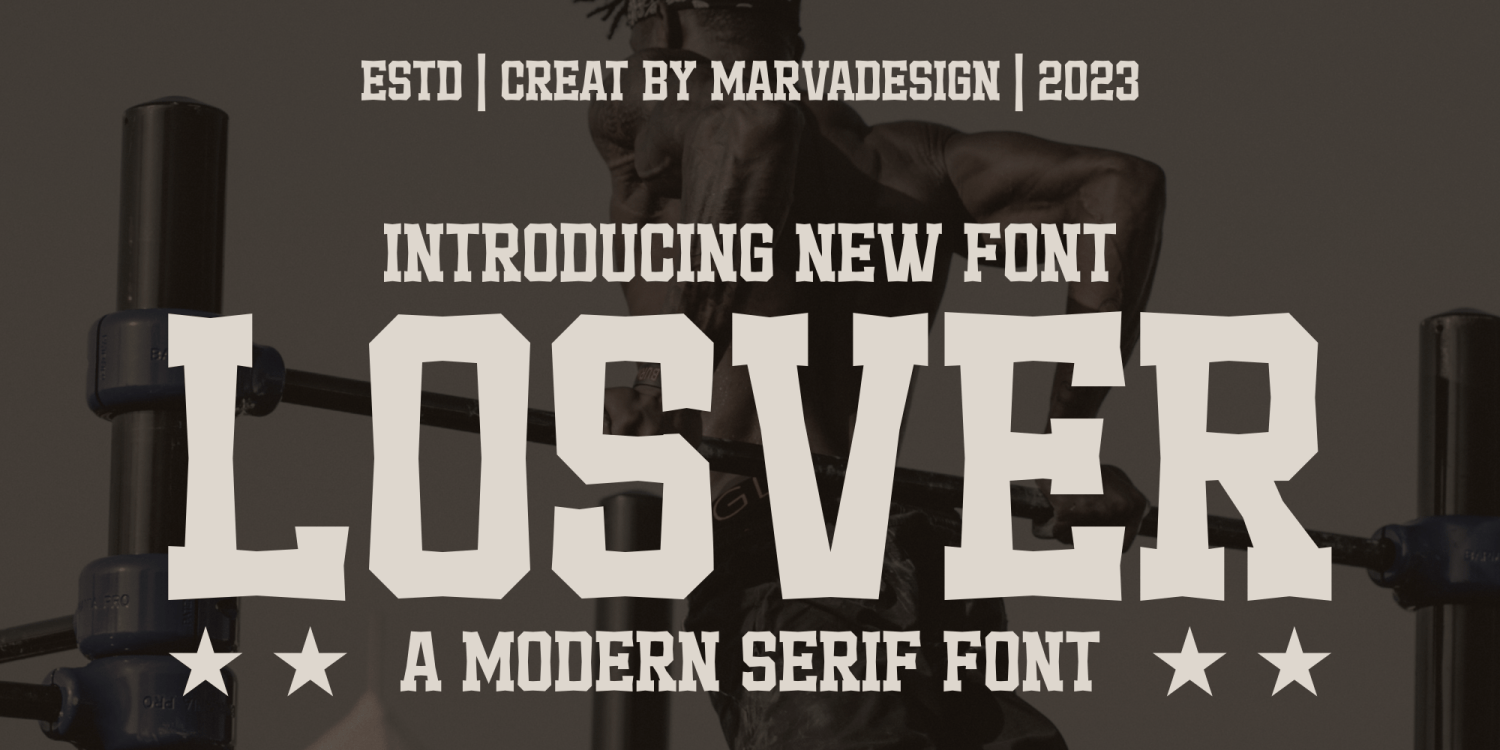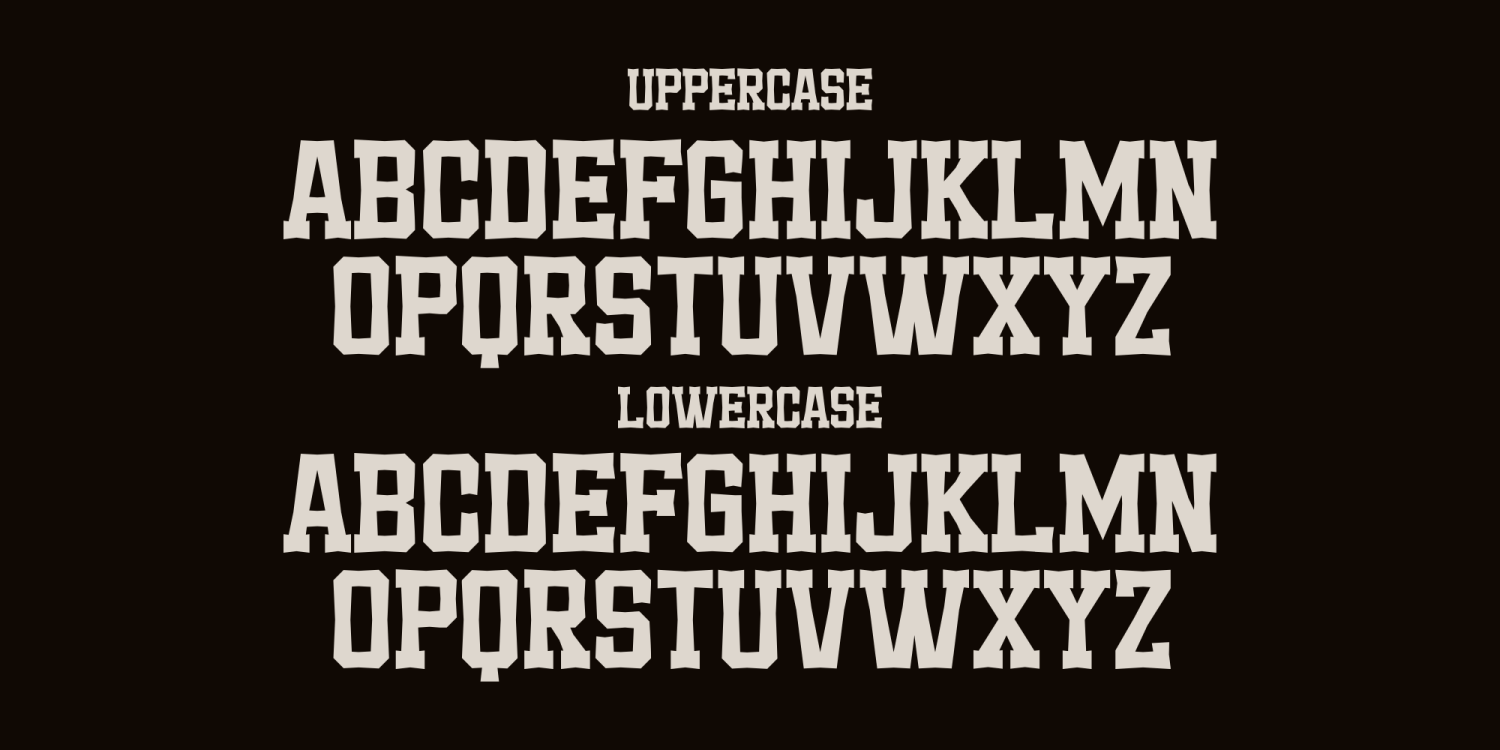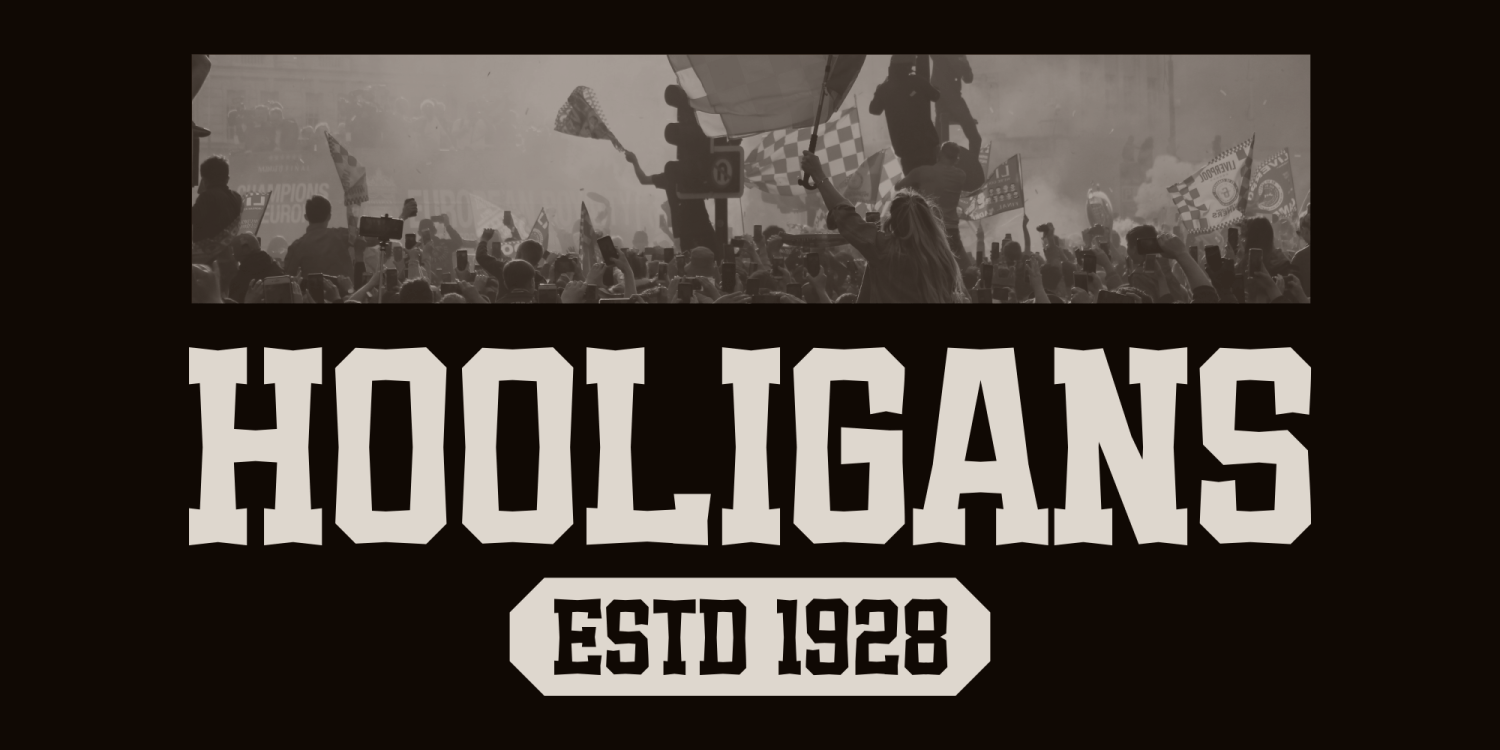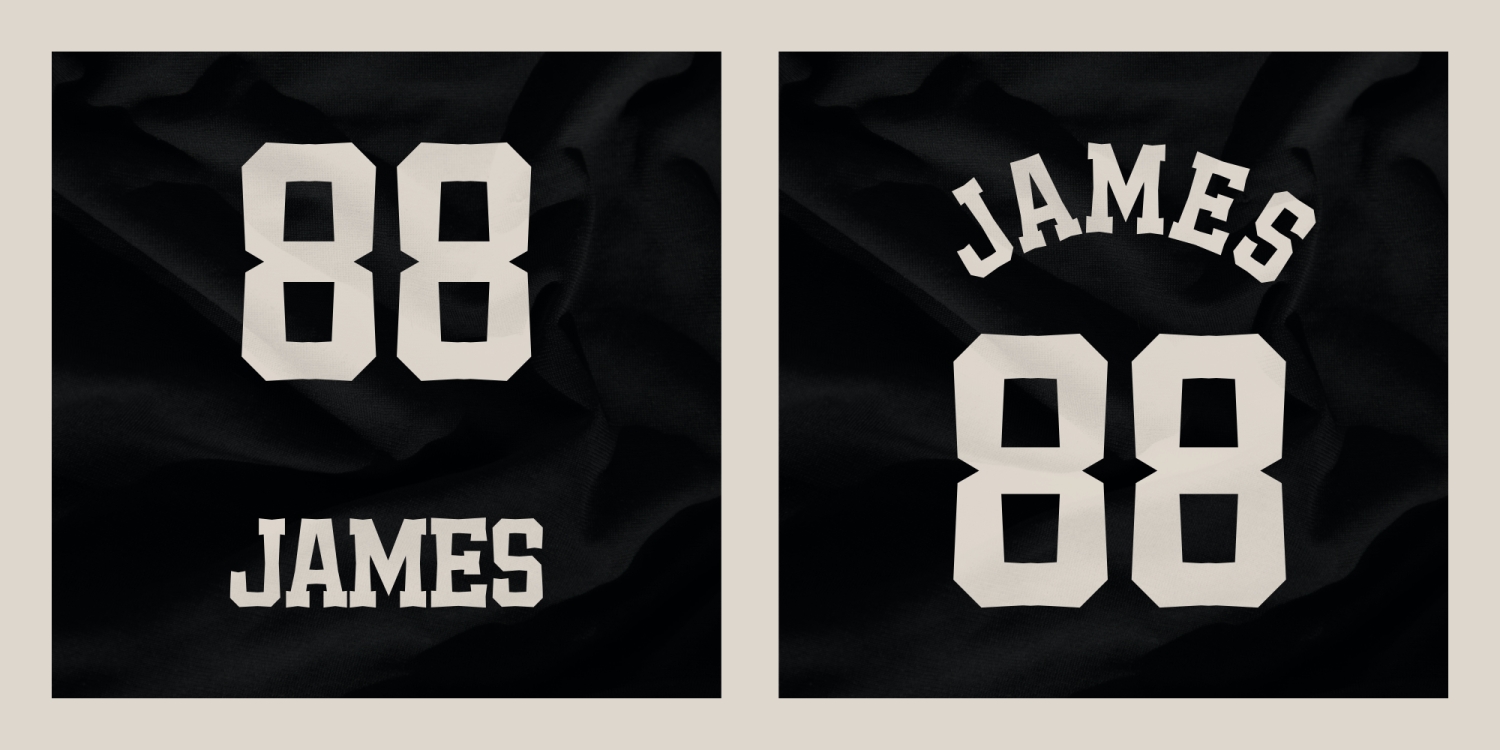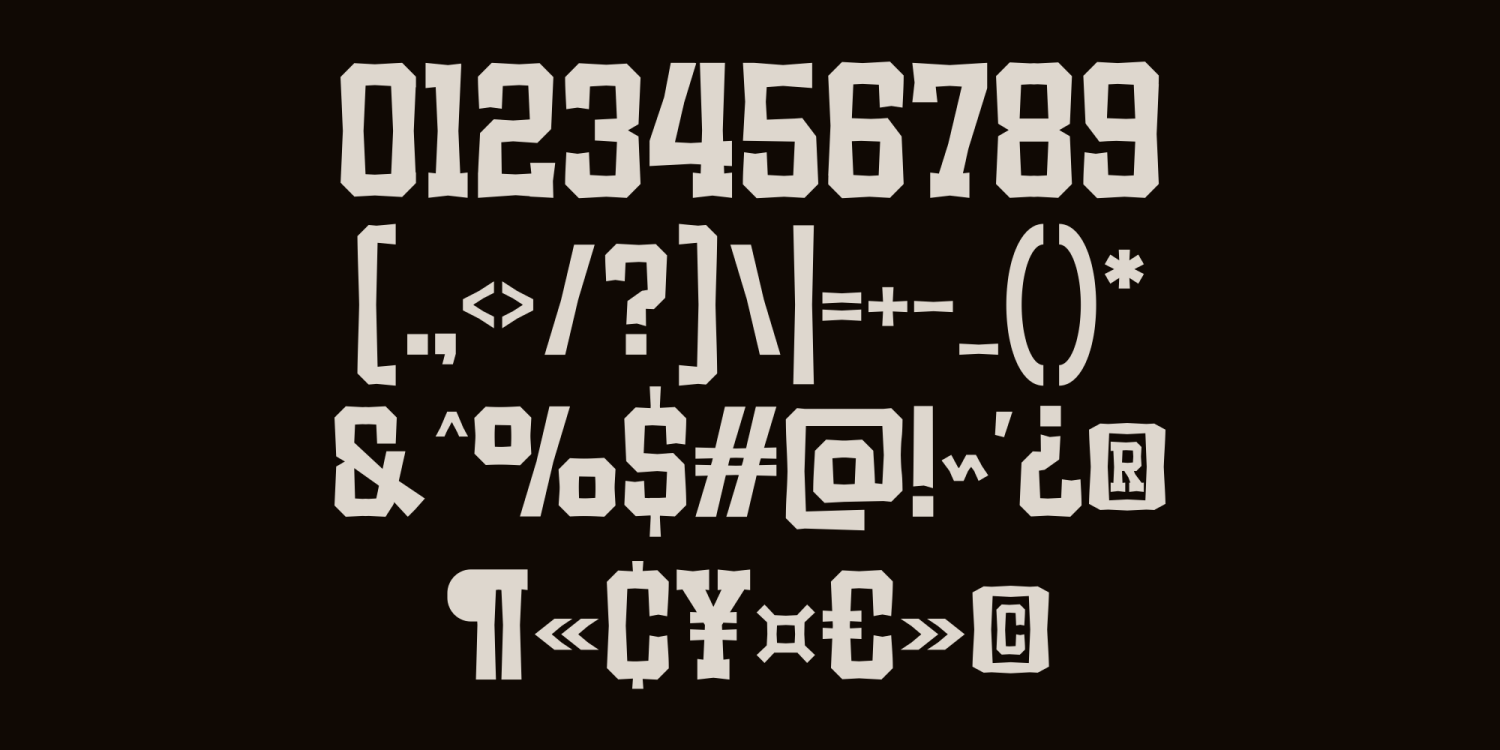
Losver
Introducing Losver is a bold and modern serif typeface that embodies strength, resilience, and a distinct vintage-inspired aesthetic. Characterized by its thick, blocky letterforms with sharp edges and slightly condensed proportions, this font is designed to make a strong visual impact. The rugged yet refined design of Losver makes it ideal for sports branding, posters, merchandise, and editorial headlines, where a commanding presence is required.
With its combination of robust geometric structure and subtle ornamental details, Losver exudes a sense of authority and confidence. The font seamlessly blends classic Western typography with contemporary design elements, making it versatile for both vintage and modern-themed projects. Its strong serif accents provide readability while maintaining a bold, eye-catching look. Perfect for athletic branding, urban streetwear, and promotional campaigns, Losver is a powerful typeface that captures attention and enhances visual storytelling.